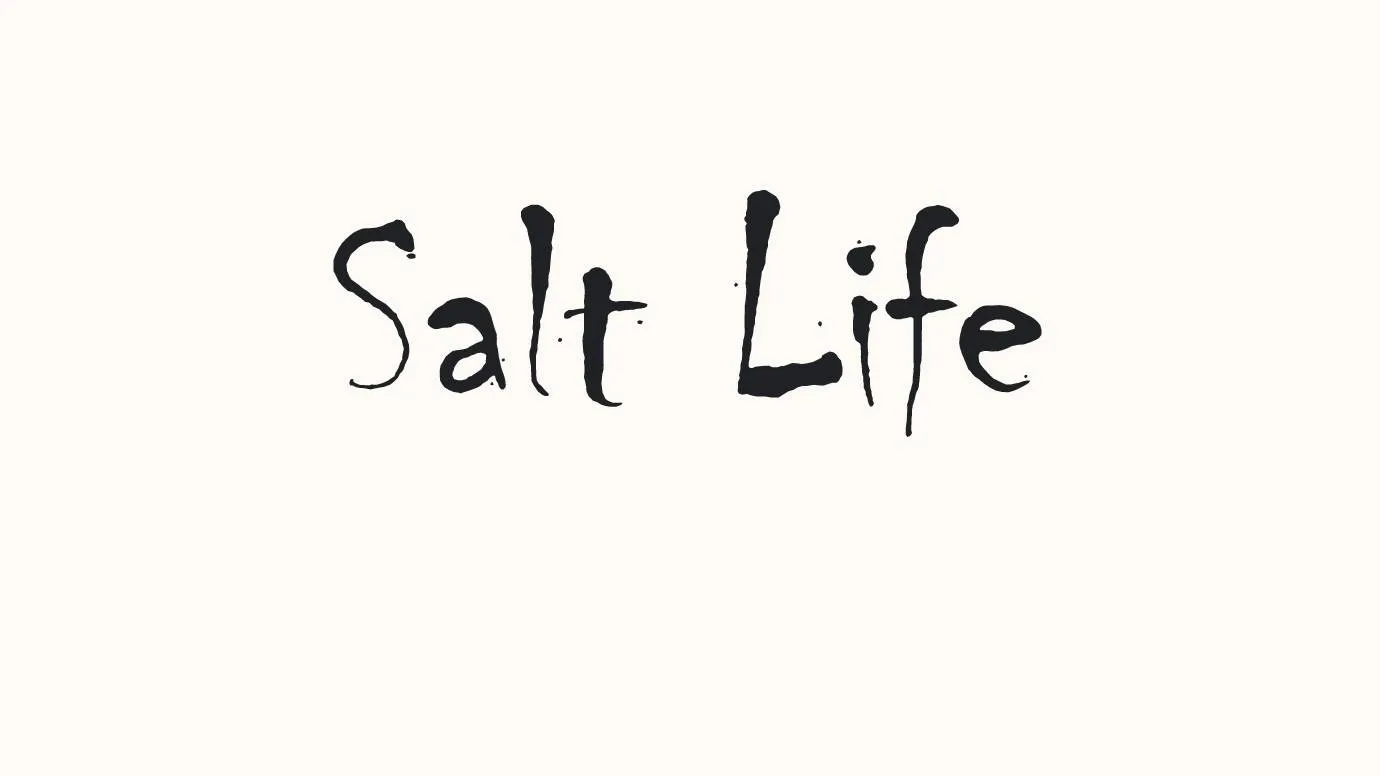
Salt Life Font was published in 2000 for the first time. It comes in elegant styles and has more than one hundred characters. This typeface contains uppercase, lowercase, and a few special characters. For increasing your text beauty this logo typeface has more useful.
| Name | Salt Life Font |
| Type | Logo |
| Designer | Andrew Smith |